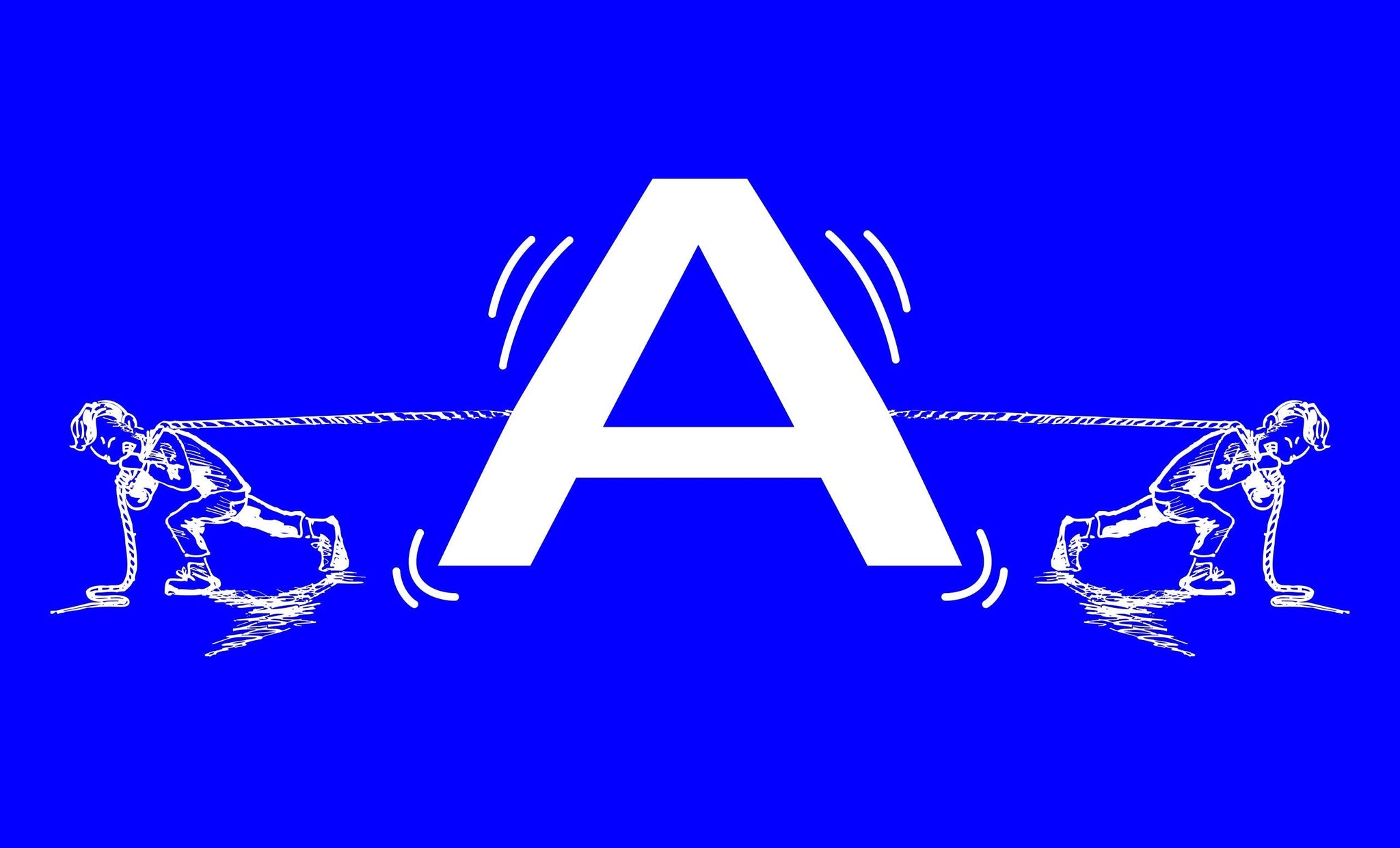
Extended fonts, or wide fonts, are precisely what they say on the tin. They’re wider than normal fonts.
Extended fonts, specifically, are the wider version of a narrower, standard counterpart. Wide fonts are just that, wide, with no skinnier alternative. Extended and wide fonts are all about confidence and clarity. They are commanding, add a sense of weight without relying on thickness, and play with breathing space in headline and display settings.
Arguably, they’ve played a key role in the development of mainstream aesthetics and branding over the past ten years (hello, Druk!), so their significance (and size) isn’t to be downplayed. We’re a big fan of extended and wide fonts, especially our own, so we thought they were owed a little ode.
PP Watch is inspired by the Swiss watches, timeless in their designs. Unwavering. Watch is a wide set sans that provides calm and solid lines for a refined sense. It brings precision and control to even the smaller points, giving it a unique presence as a wide typeface.
Agrandir
If you want a big font, Agrandir is the font to turn to. 74 fonts over seven weights, five widths and Italics (and four Text styles). Designed to challenge modernist rigidity, it balances humanist curves with geometric structure. Its extended cuts feel approachable yet unapologetic, making it perfect for big, bold headlines and branding. Despite the width, it avoids stiffness, always feeling warm and progressive.
Gatwick
Gatwick is the wide serif with a flair of vintage airport-lounge cool. Its extended proportions are pulled straight from 1970s luggage tags, mags and ads, giving it an elegant retro edge without being stuck in the past. The combination of its wide stance and sharp serifs makes for a confident, distinctly grown-up feel, plus, it’s available in two high-contrast families.
Right Slab
Right Slab brings the no-nonsense utility of slab serifs into an ultra-usable, extended system. With widths ranging from tight to generously wide, the typeface is structured, comfortable, and built to adapt. The extended styles lend themselves to your high-impact needs, truly taking up the space it occupies. And if you want a nice, wide serif to accompany it, we have an idea or two…
Right Serif
While Right Serif shares the same DNA as its Slab sibling, its extended cuts lean further into elegance. There’s a subtle contrast in its strokes, a careful rhythm in its spacing, and a softness that tempers its scale. In extended styles, Right Serif becomes a quiet power player: great for both brands and books, feeling free and expansive regardless of the application.
Monument Extended
This one’s a classic for a reason. Monument Extended is all muscle: dramatic, loud, and certainly monumental. Its wide letterforms take up serious space and are unapologetic about it. With the latest updates introducing new widths beyond the original extended cut, the family is more versatile than ever, making it ideal for anything that demands to be seen before it’s read.
Neue Corp
A new (or neue) favourite, Neue Corp’s extended styles give corporate typography the contemporary glow-up it needs. Sleek, techy, and future-facing, it combines functional legibility with a hint of expressive sharpness. The extended weights are especially well-suited for branding, generally optimised for big headline applications alongside smaller, fiddly UI and design system needs (all without losing the prominence of precision at its core). It’s utility, just stretched.